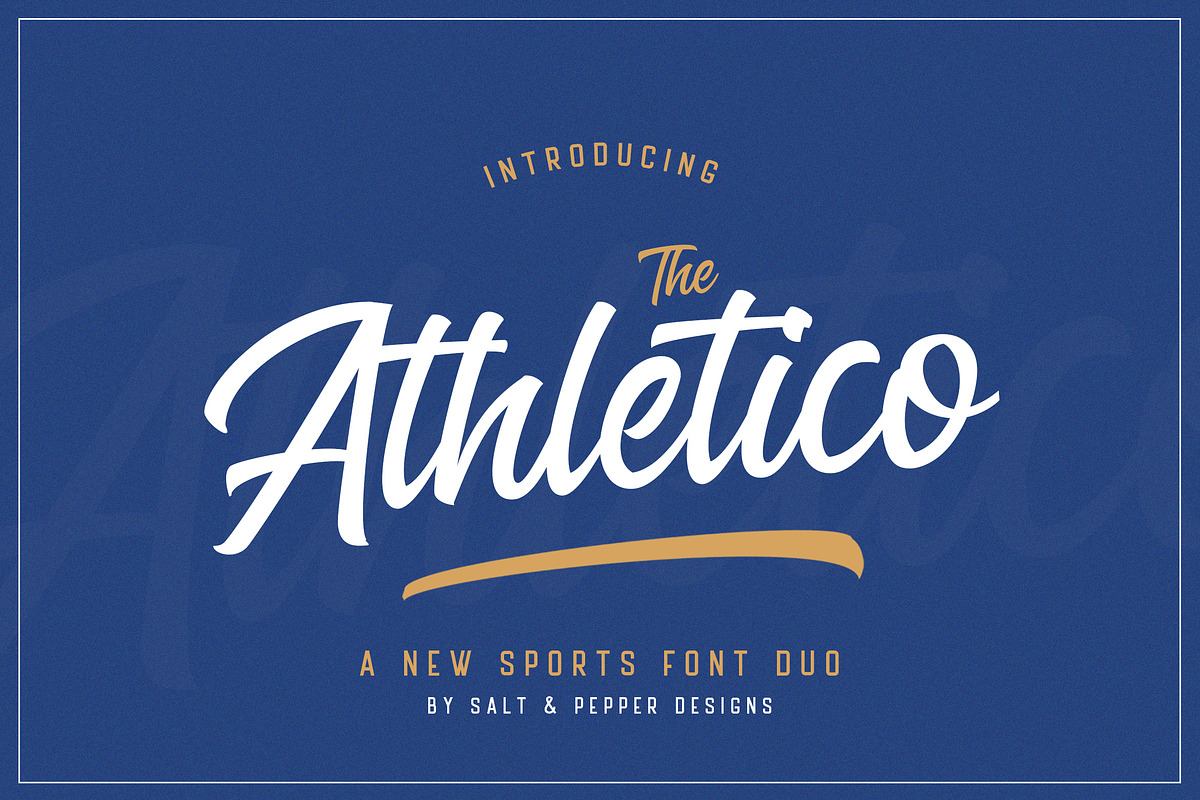
The Athletico Font Duo Free Download is a dynamic and versatile font pair featuring a bold sans serif and a sleek script, designed to bring both strength and style to your designs. Perfect for sports branding, gym logos, athletic apparel, motivational posters, and modern advertising, The Athletico delivers a powerful visual punch with a stylish twist.
With its bold sans font bringing structure and confidence, and its script counterpart adding flair and motion, The Athletico Font Duo Free Download gives designers the flexibility to mix contrast and cohesion effortlessly. Whether you’re creating a sportswear label or energetic social media content, this font duo brings energy and impact to every project.